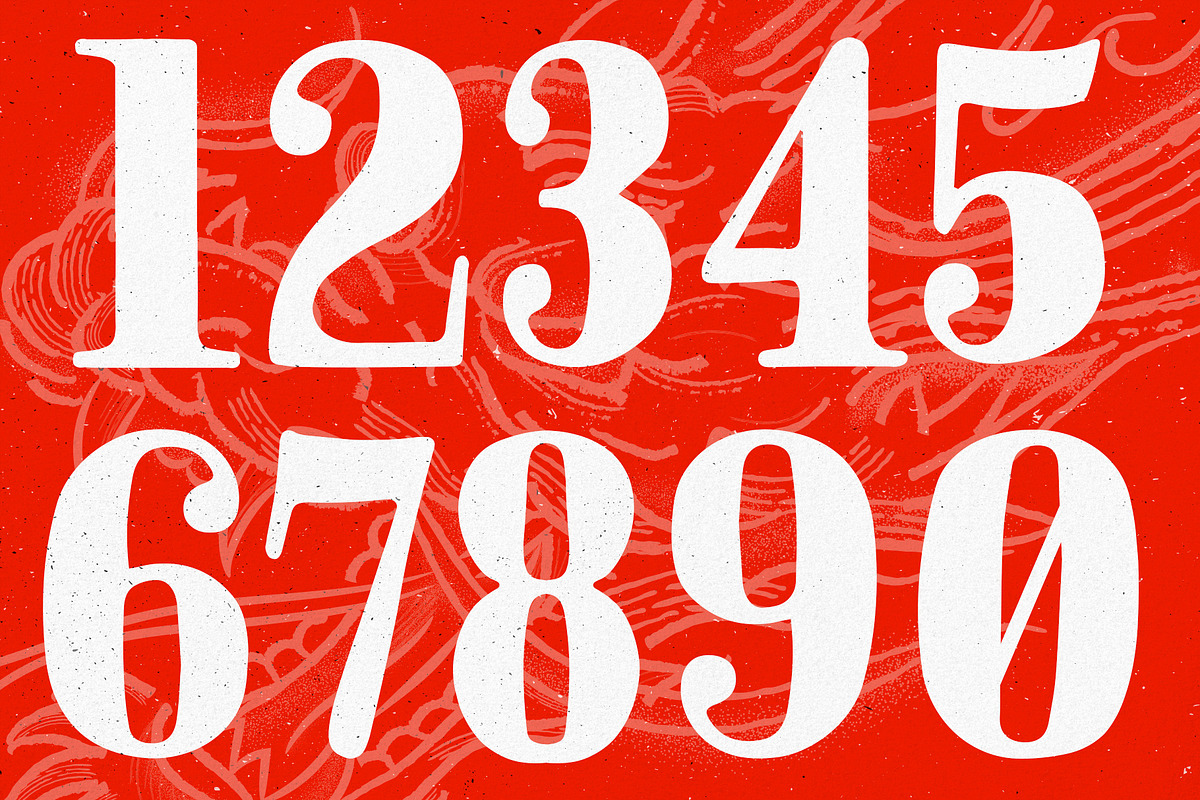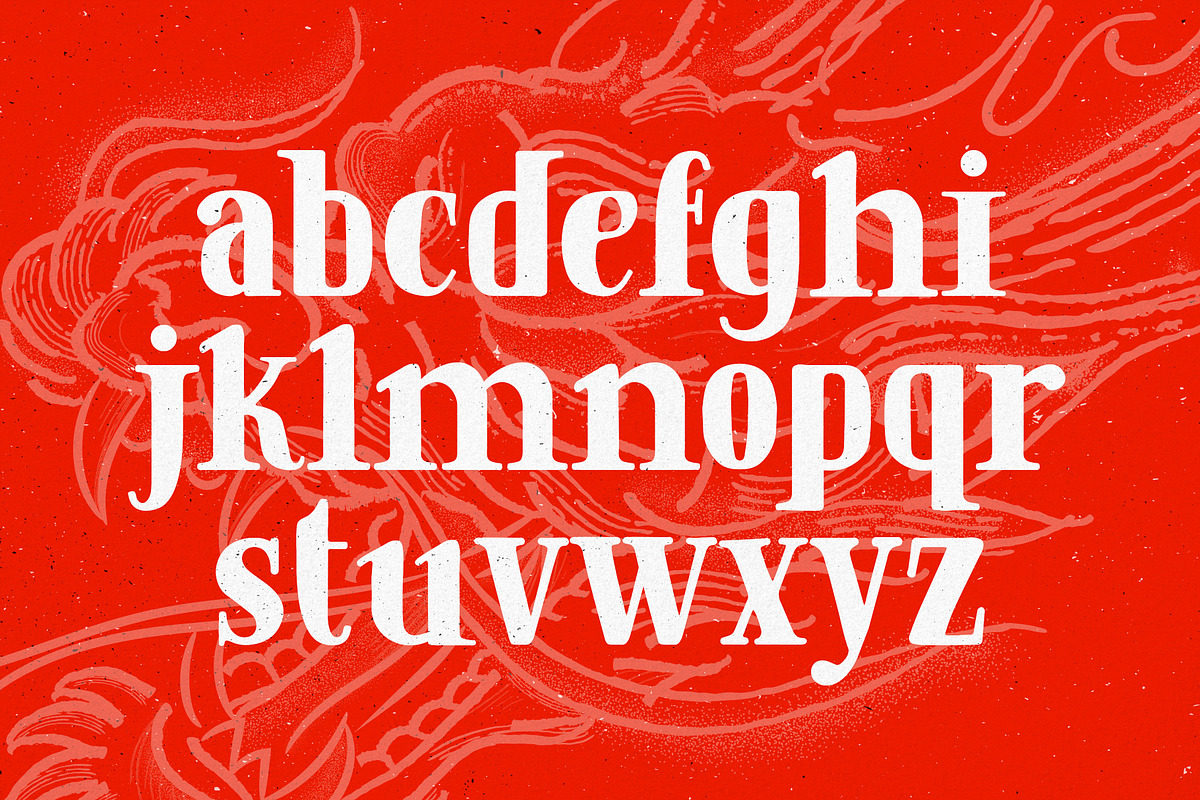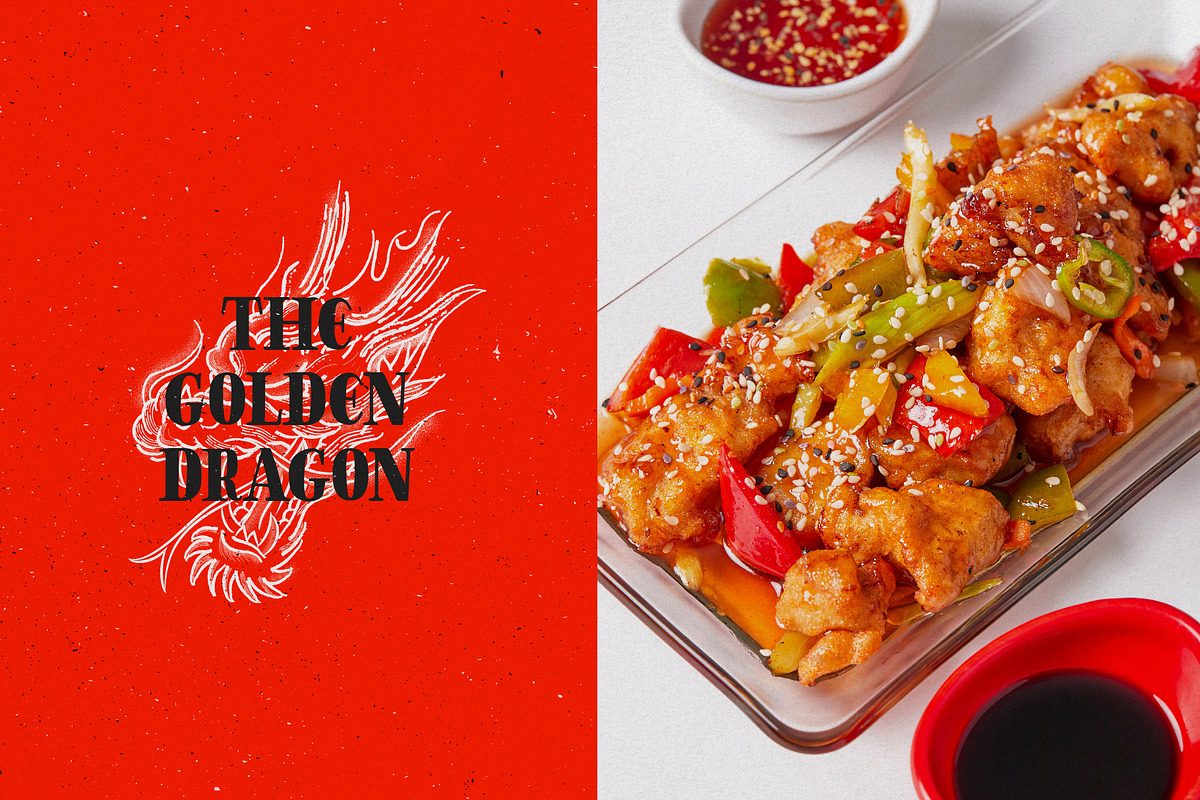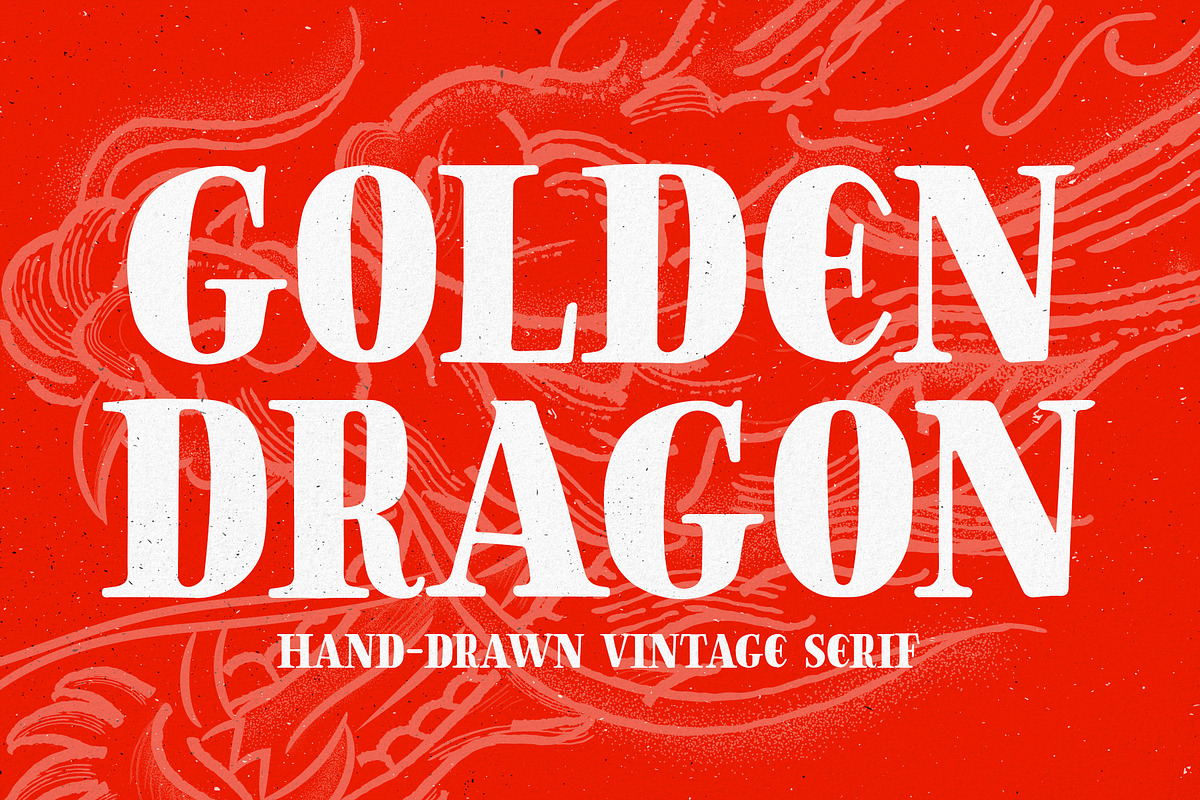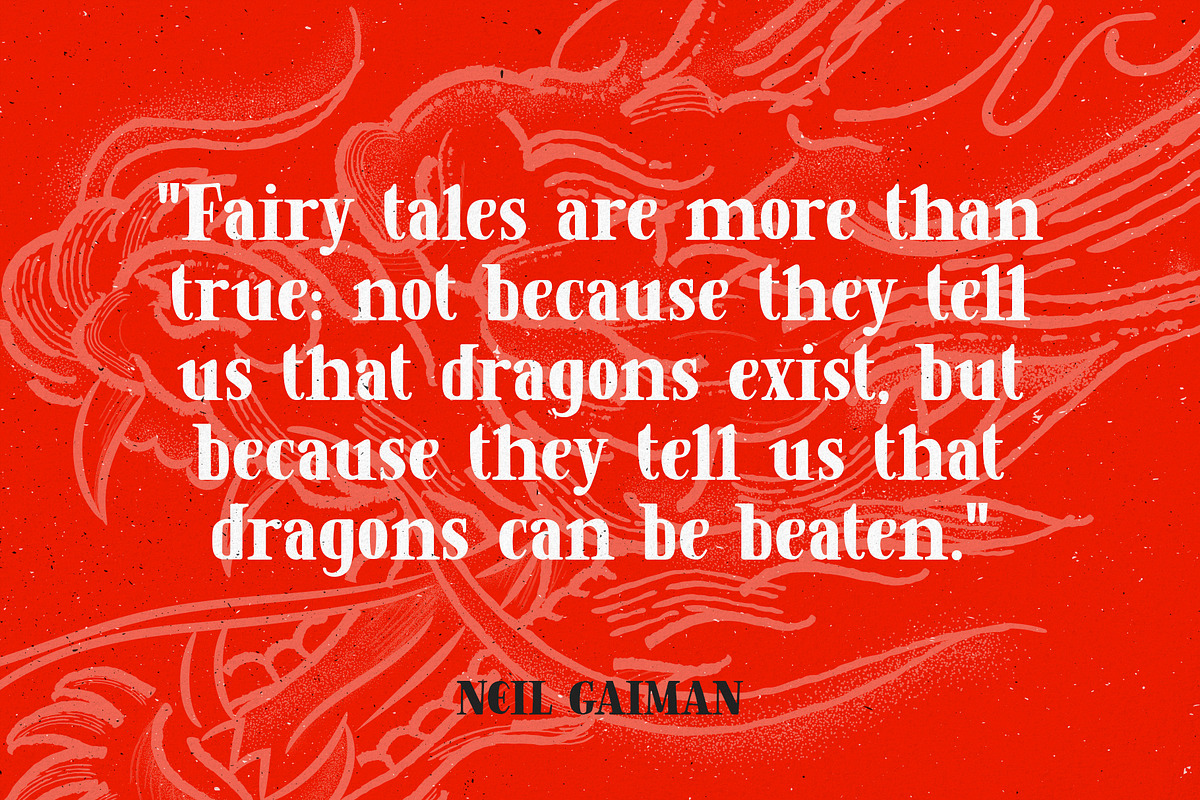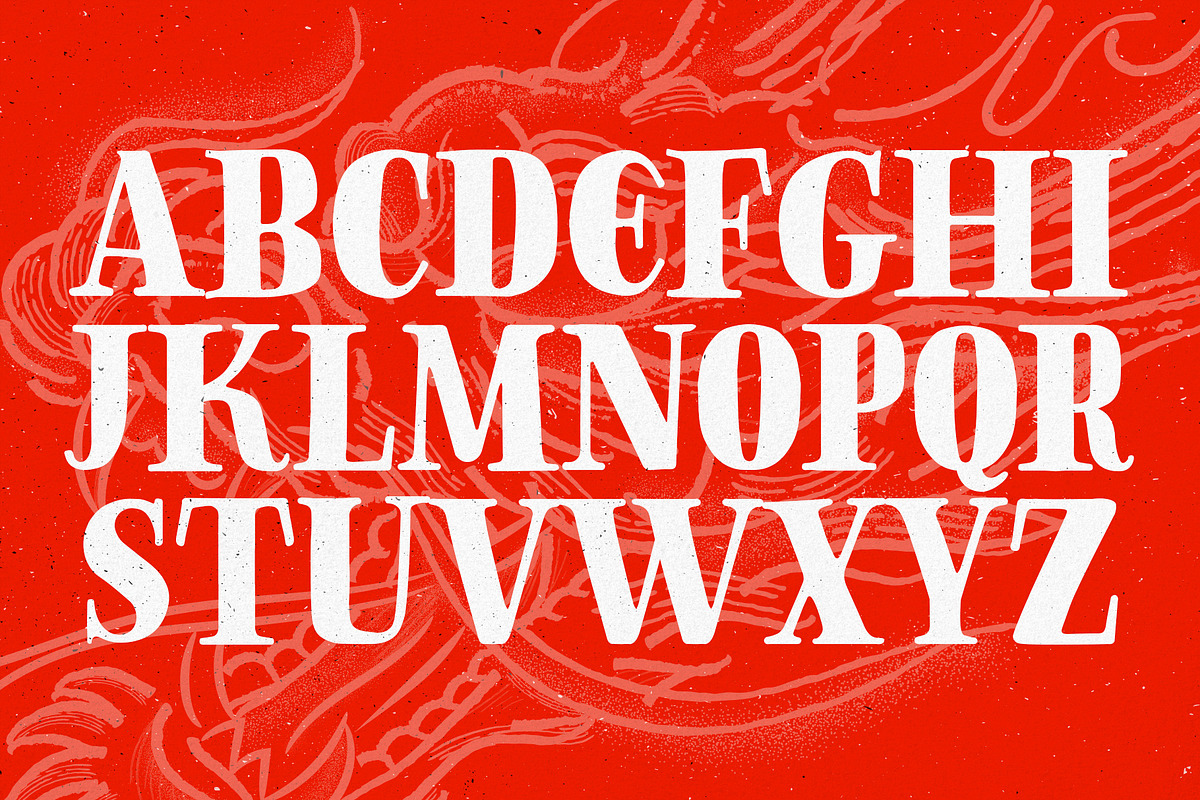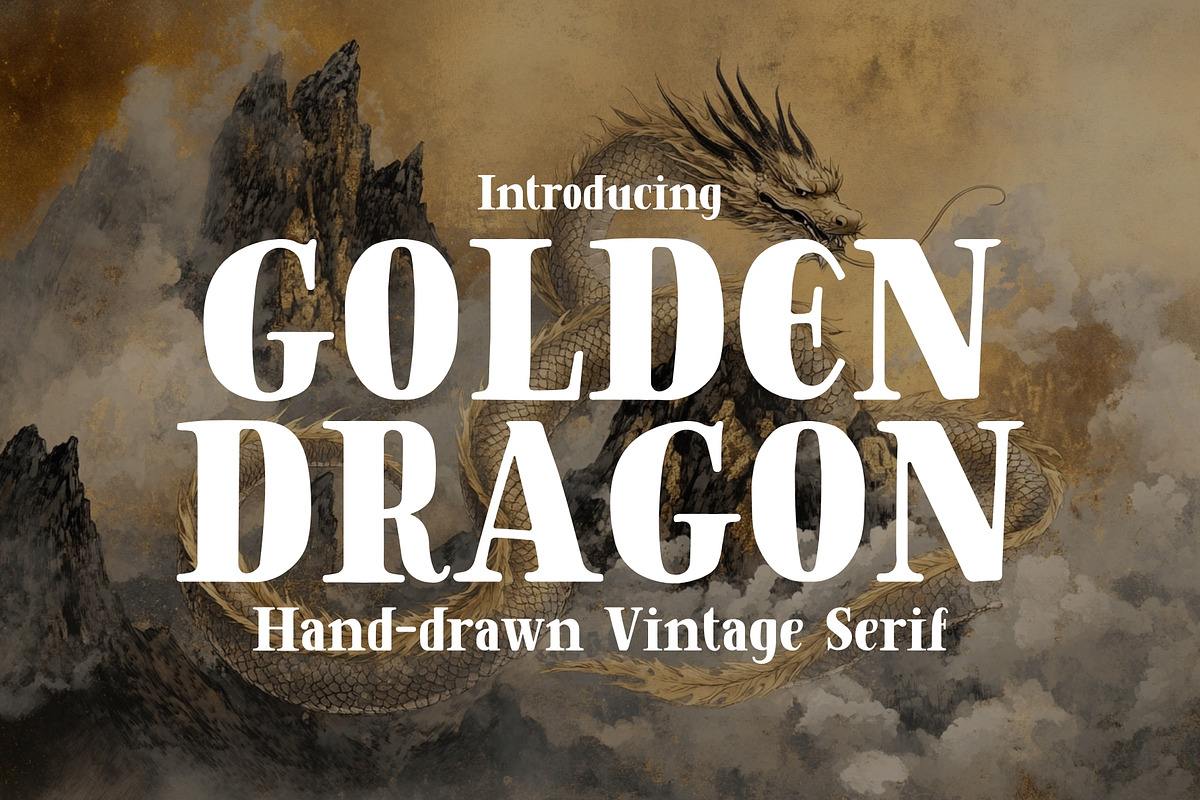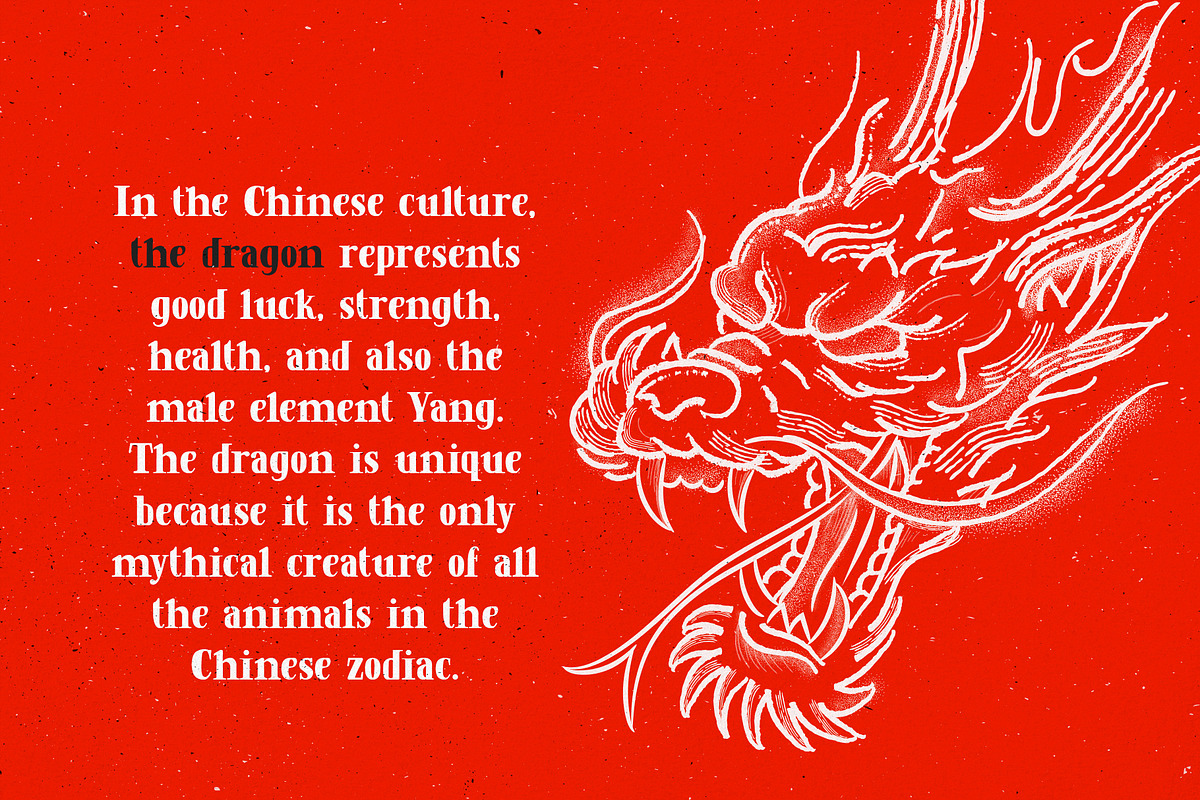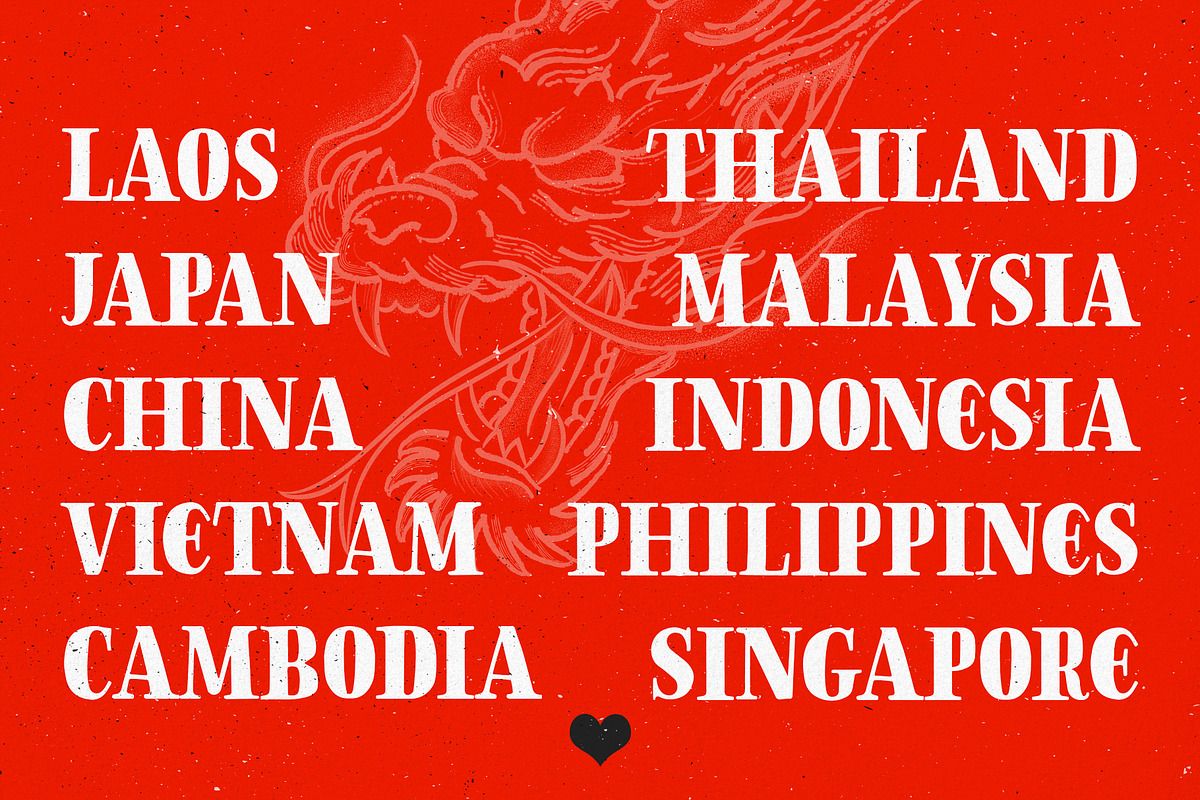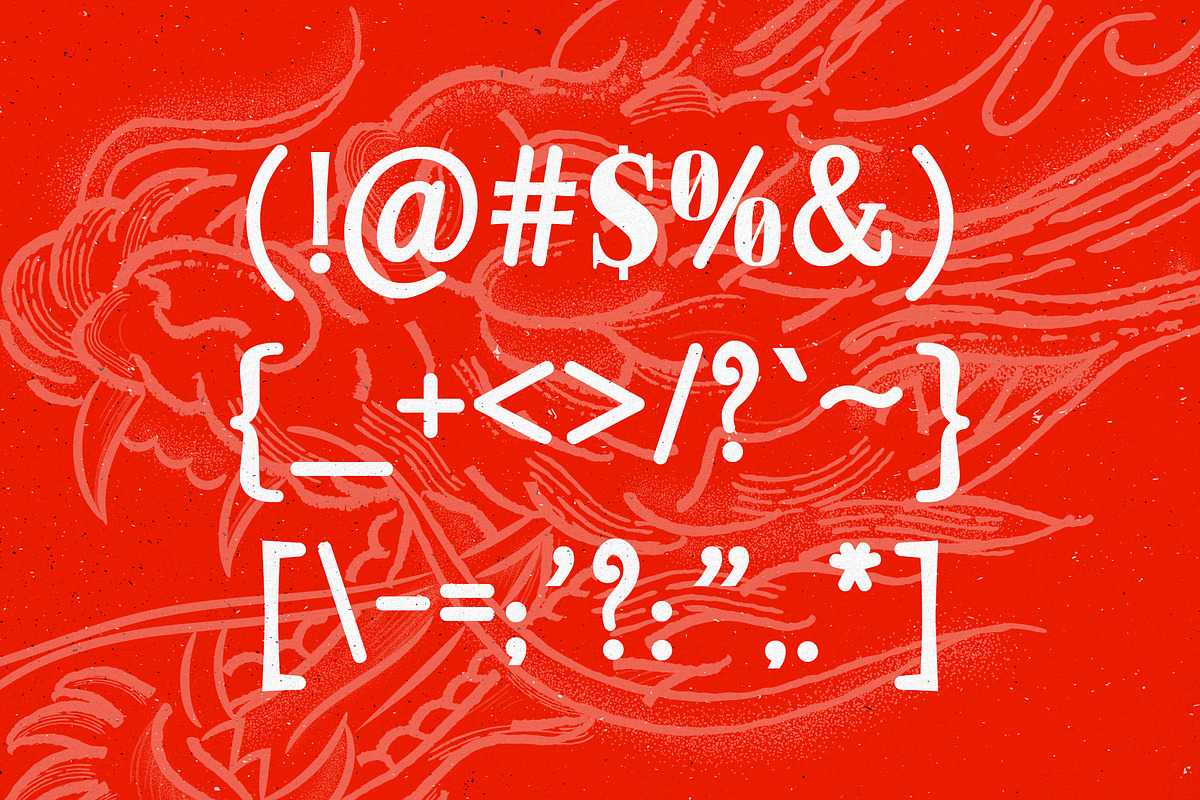
Golden Dragon - Hand-drawn Serif
Golden Dragon is a hand-drawn serif typeface. The font's vintage look adds a personal/organic touch to your designs. It looks absolutely beautiful paired with textures. You can use it for branding, social media, headlines, Youtube thumbnails, emblems, posters, merchandise, advertising, and much more. Golden Dragon is perfect for creative projects that need a unique Asian look. But don't let that limit your creativity it's also great for pirate themed projects.